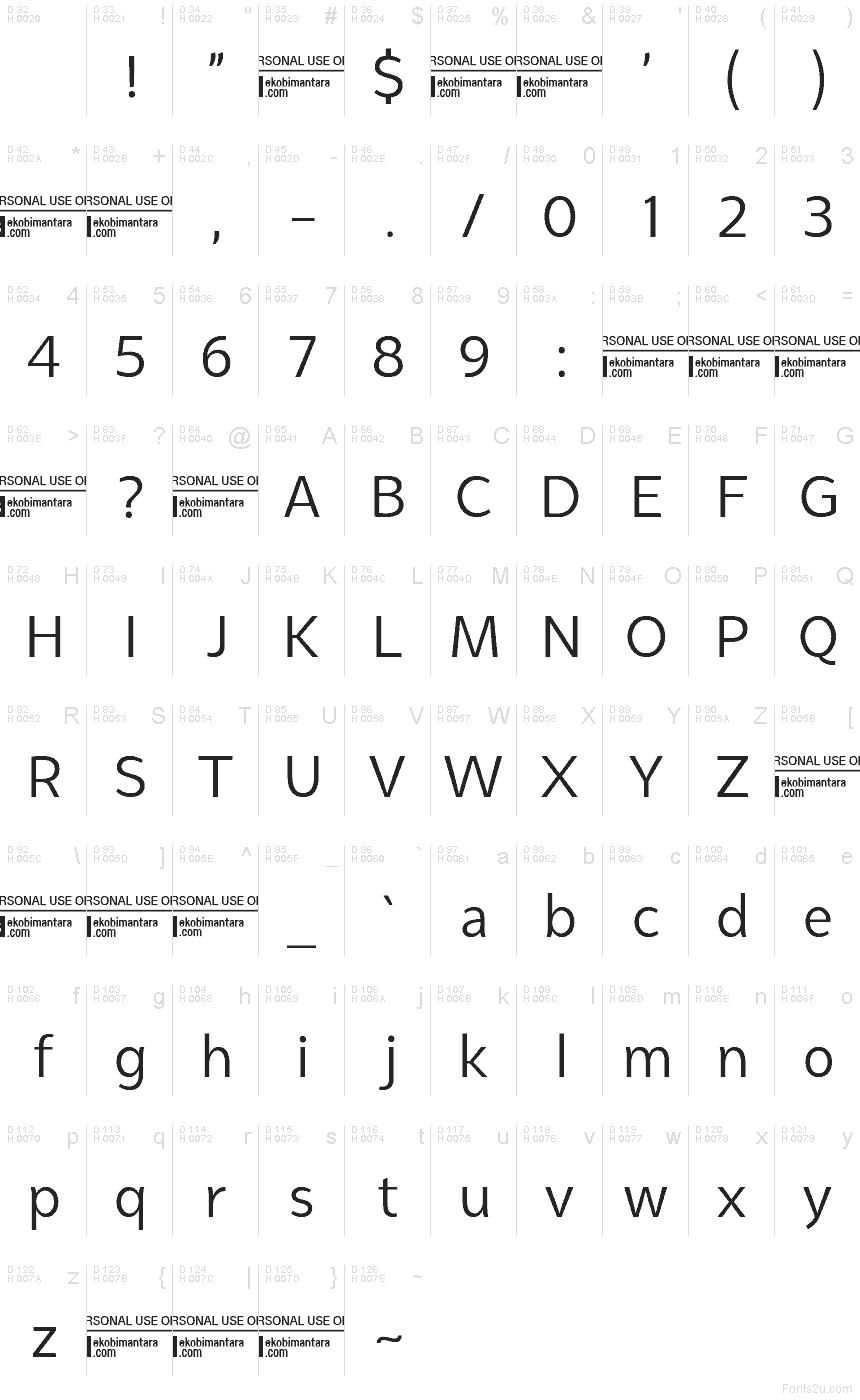
Syabil Trial Light
Syabil Light font by Eko Bimantara is a free light sans serif font. Part of the Syabil family, it solves a common headache: finding a featherweight sans that stays readable and warm, not cold or flimsy. Its crisp, airy strokes and open counters create an easy rhythm, while gentle curves and balanced spacing keep text calm and contemporary on both screens and print.
Using Syabil Light, lean into quiet elegance that still holds together in real layouts—UI menus, lifestyle branding, wellness packaging, editorial pull quotes, presentation decks, and minimalist posters. This free font shines on clean backgrounds and scales smoothly for microcopy. Simple tip: pair it with Syabil Regular or Bold for hierarchy without breaking the vibe.